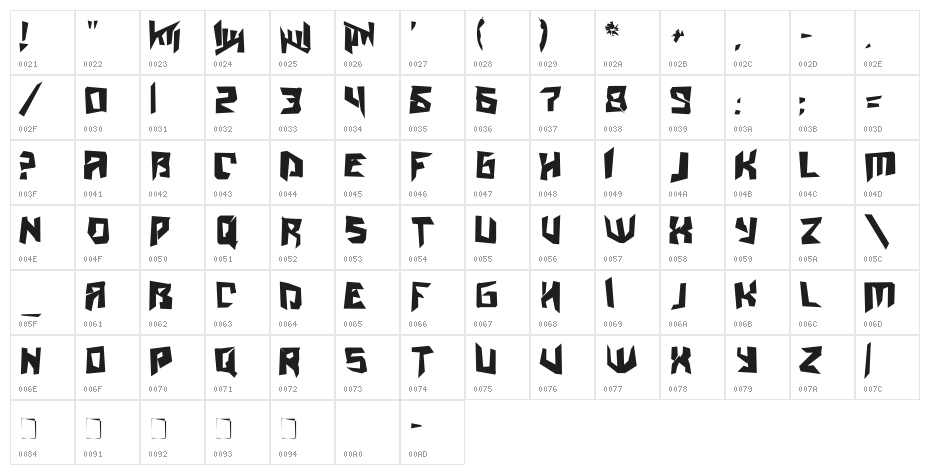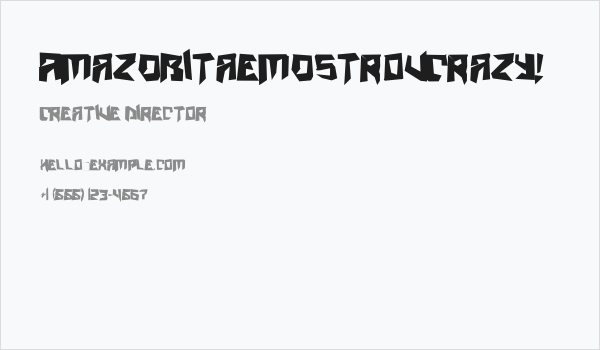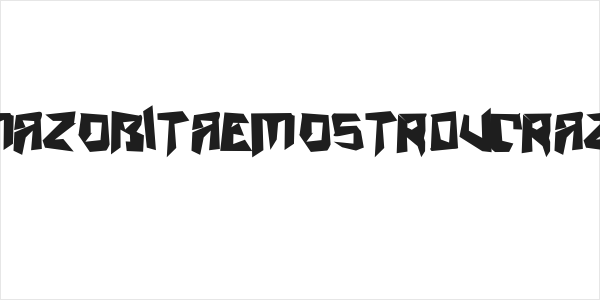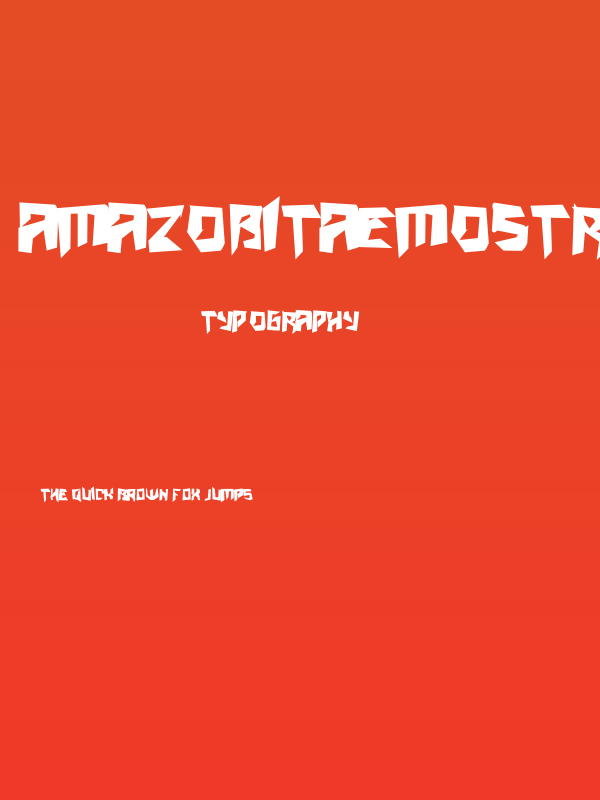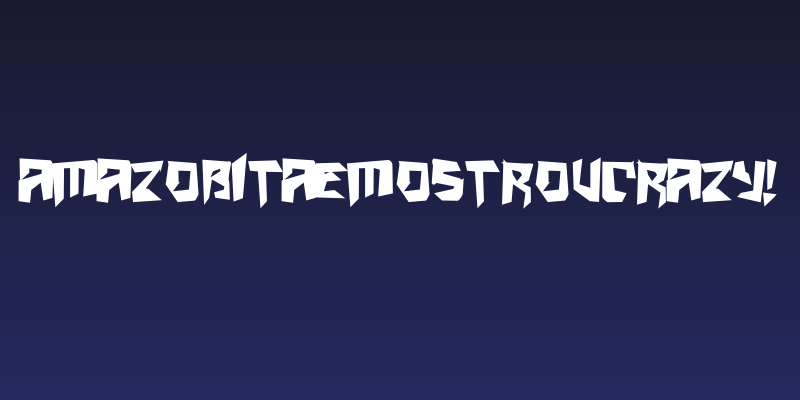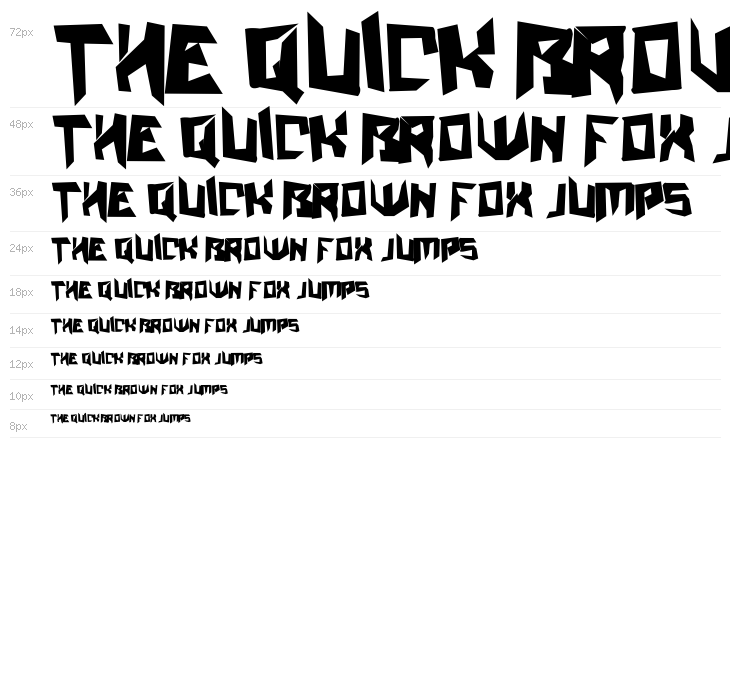
AmazObitaemOstrovCrazy! Font
AmazObitaemOstrovCrazy! Description
This font features a bold, angular design with sharp edges and a geometric style. The characters are highly stylized, giving them a futuristic and edgy appearance. Each letter is crafted with a unique, jagged form that creates a sense of movement and dynamism. The uppercase and lowercase letters maintain a consistent style, while the numbers and special characters follow the same angular theme. The font's design is striking and attention-grabbing, making it ideal for projects that require a bold statement.
| Overall Style | Futuristic, Edgy |
| Proposed Projects | This font is perfect for projects like video game titles, sci-fi movie posters, edgy branding, and any design that requires a bold, modern aesthetic. |